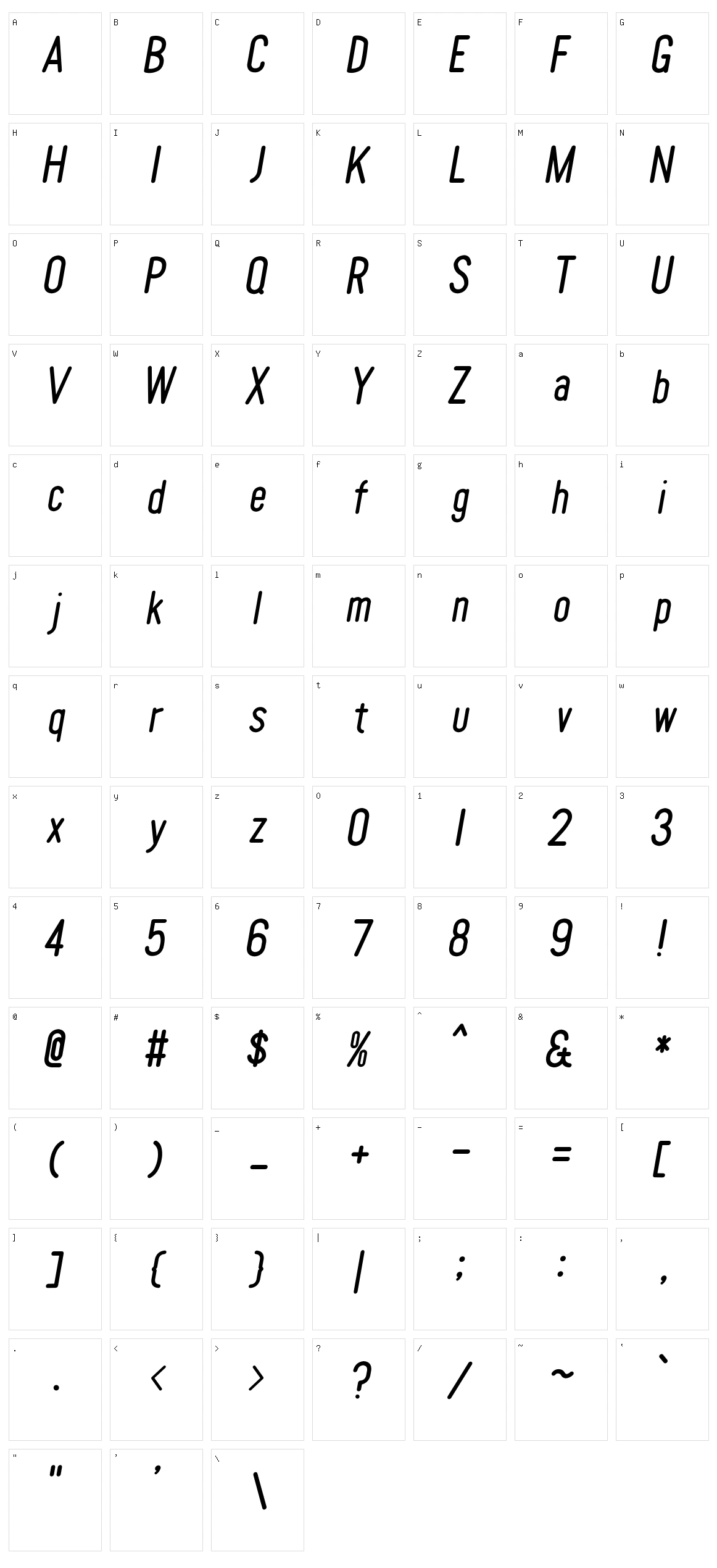
Tomato Round Condensed
Category: Sans serif
šTomato Round Condensed
•‚ª‹·‚¢ƒ‰ƒEƒ“ƒhƒSƒVƒbƒN‘̂ł·B‚Ç‚±‚É‚Å‚à‚ ‚è‚»‚¤‚Ȃ̂Ɏg‚¢‚â‚·‚¢‚Ì‚ª‚¢‚Ü‚¢‚¿Œ©‚‚©‚ç‚È‚©‚Á‚½‚̂ōì‚ç‚ê‚Ü‚µ‚½BŠî–{‚͎ʐAŽž‘ã‚ÉŽg‚í‚ê‚Ä‚¢‚½ƒ‰ƒEƒ“ƒhƒSƒVƒbƒN‘̖̂|ˆÄ‚Å‚·B
Tomato Round Condensed cc ‚±‚ꂪŠî–{‚Å‚·B
Tomato Round Condensed Oblique cc ŒX‚¢‚Ă܂·B
Tomato Round Condensed Thin cc ×‚¢‚Å‚·B
¡ƒqƒ“ƒg
E‘å•¶Žš‚Ə¬•¶Žš‚̑傫‚³‚̈Ⴂ‚ª‹É’[‚Å‚·B
E‘å•¶Žš‚́uIviƒAƒCj‚Ɛ”Žš‚́u1vi‚¢‚¿j‚ɈႢ‚Í‚ ‚è‚Ü‚¹‚ñB¬•¶Žš‚́ulviƒGƒ‹j‚àü‚ªŽáб×‚¢‚¾‚¯‚Å‚·Bƒ†ƒjƒo[ƒTƒ‹EƒfƒUƒCƒ“‚ł͂ ‚è‚Ü‚¹‚ñB
E–¼‘O‚́uƒgƒ}ƒgv‚͉½‚̈Ӗ¡‚à‚ ‚è‚Ü‚¹‚ñBÅ‹ßƒgƒ}ƒgƒWƒ…[ƒX‚ð‚æ‚­ˆù‚ނ̂ŁB